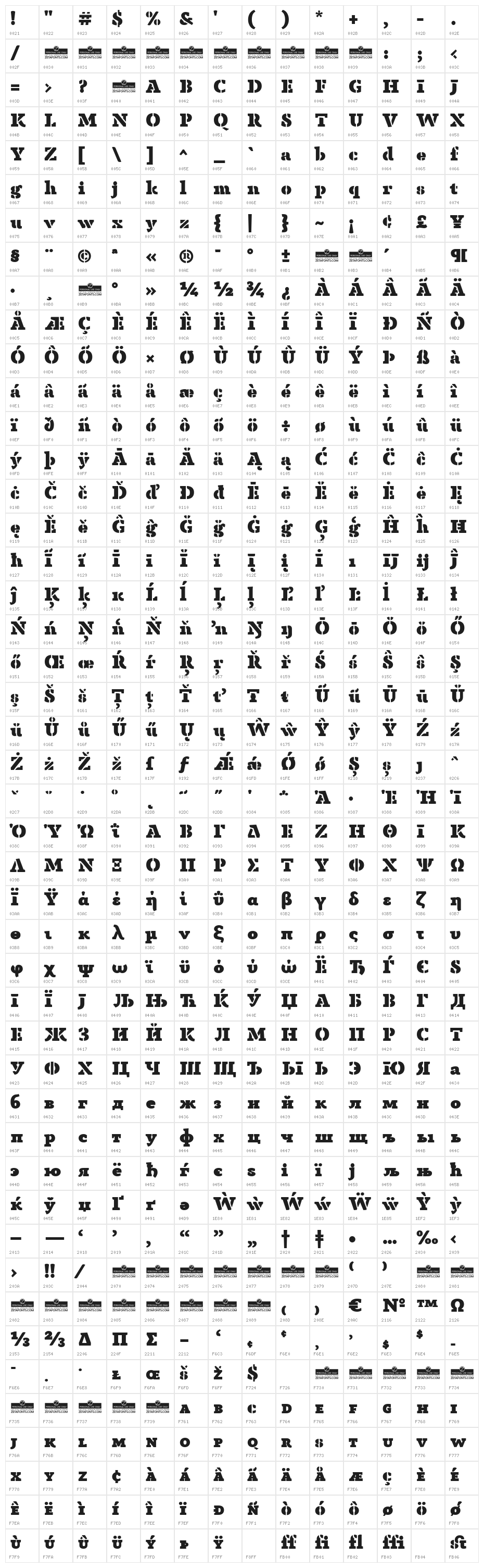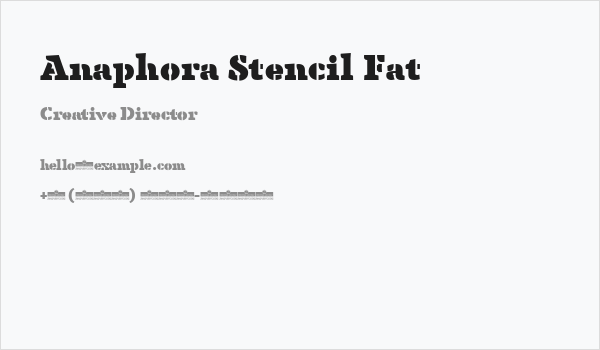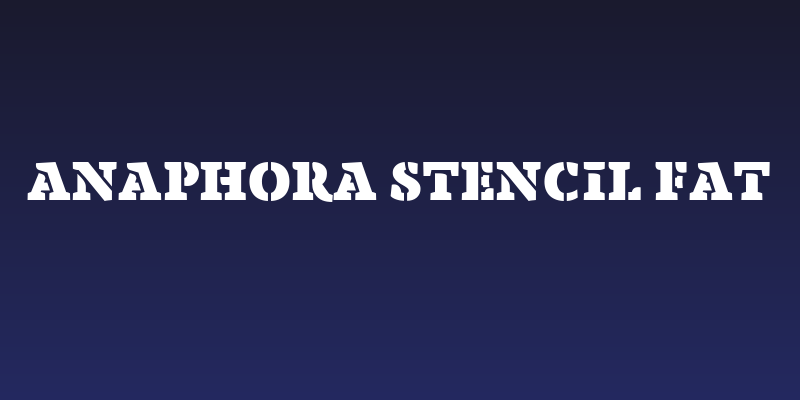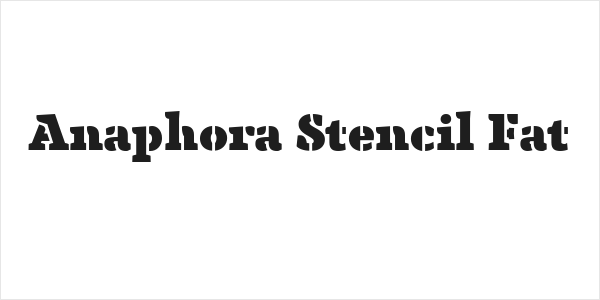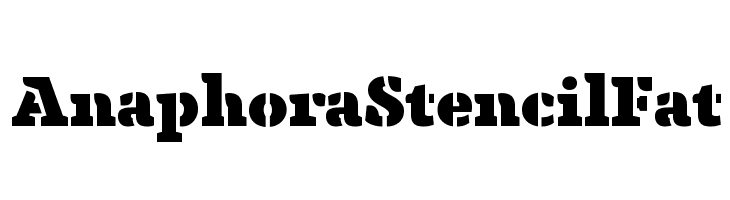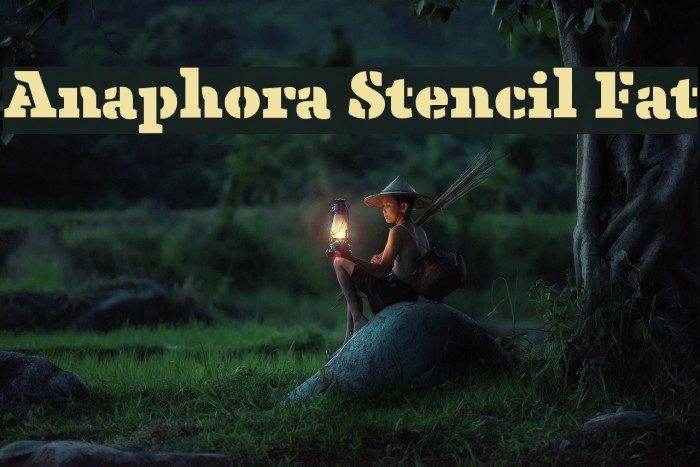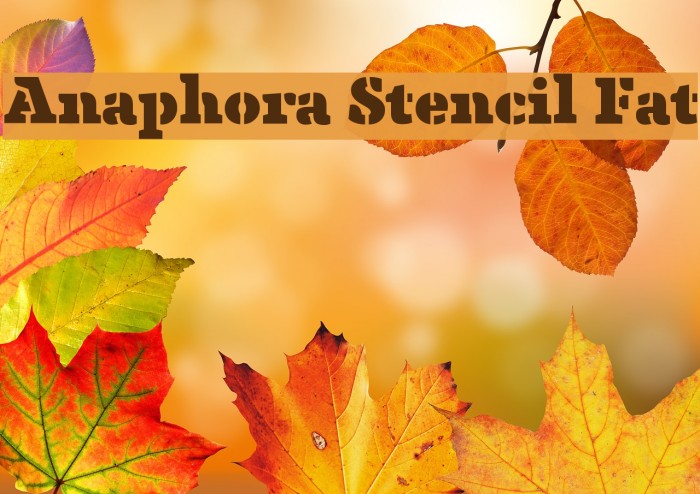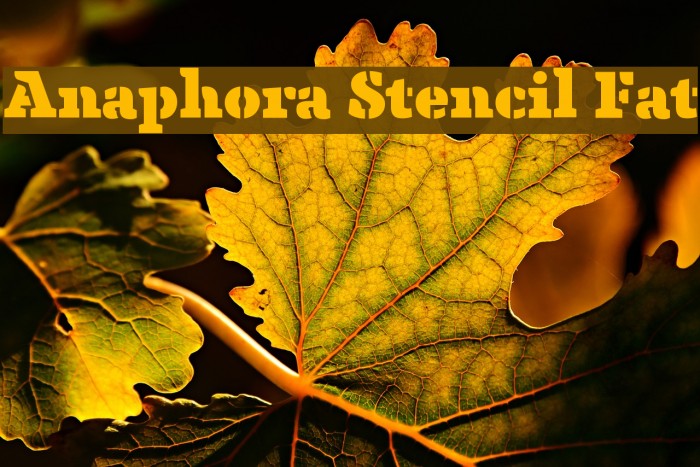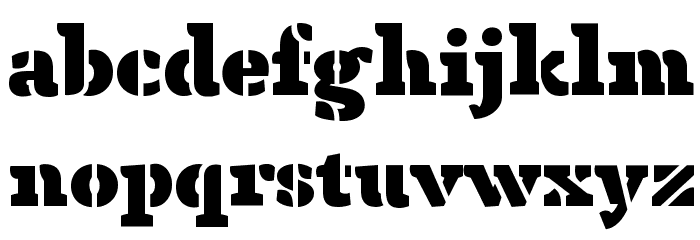
Anaphora Stencil Fat Font
Anaphora Stencil Fat Description
This font features a bold, stencil-inspired design with thick, blocky letters that are cut with distinct gaps, giving it a rugged and industrial feel. The uppercase and lowercase letters maintain a consistent weight, emphasizing their strong presence. The characters are well-defined, with sharp angles and clean lines that enhance readability. The numbers and special characters follow the same bold style, ensuring uniformity across all glyphs. This font's unique stencil effect makes it stand out, offering a modern twist on traditional bold typefaces.
| Proposed Projects | Ideal for branding, posters, signage, and any project requiring a bold, industrial aesthetic. |